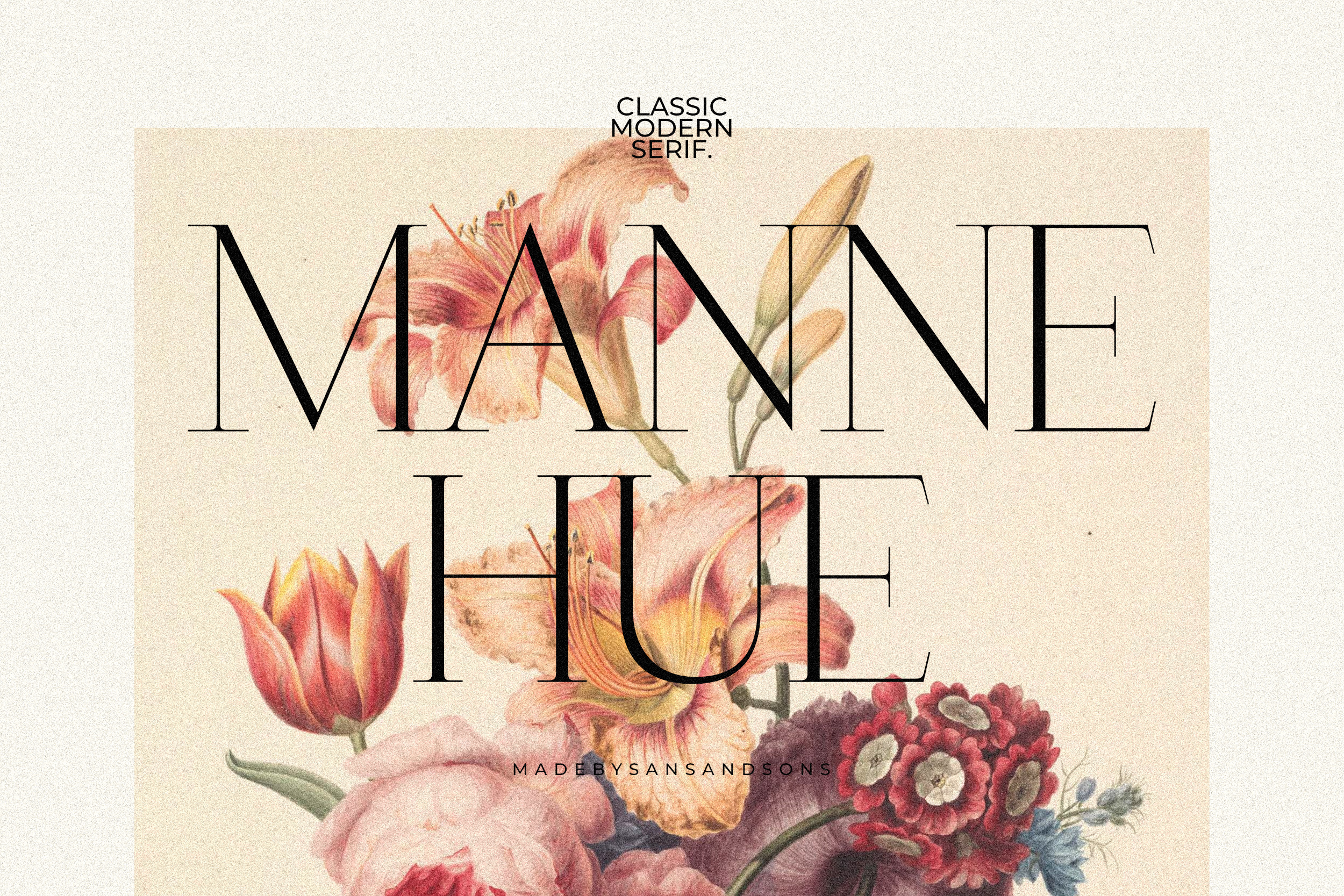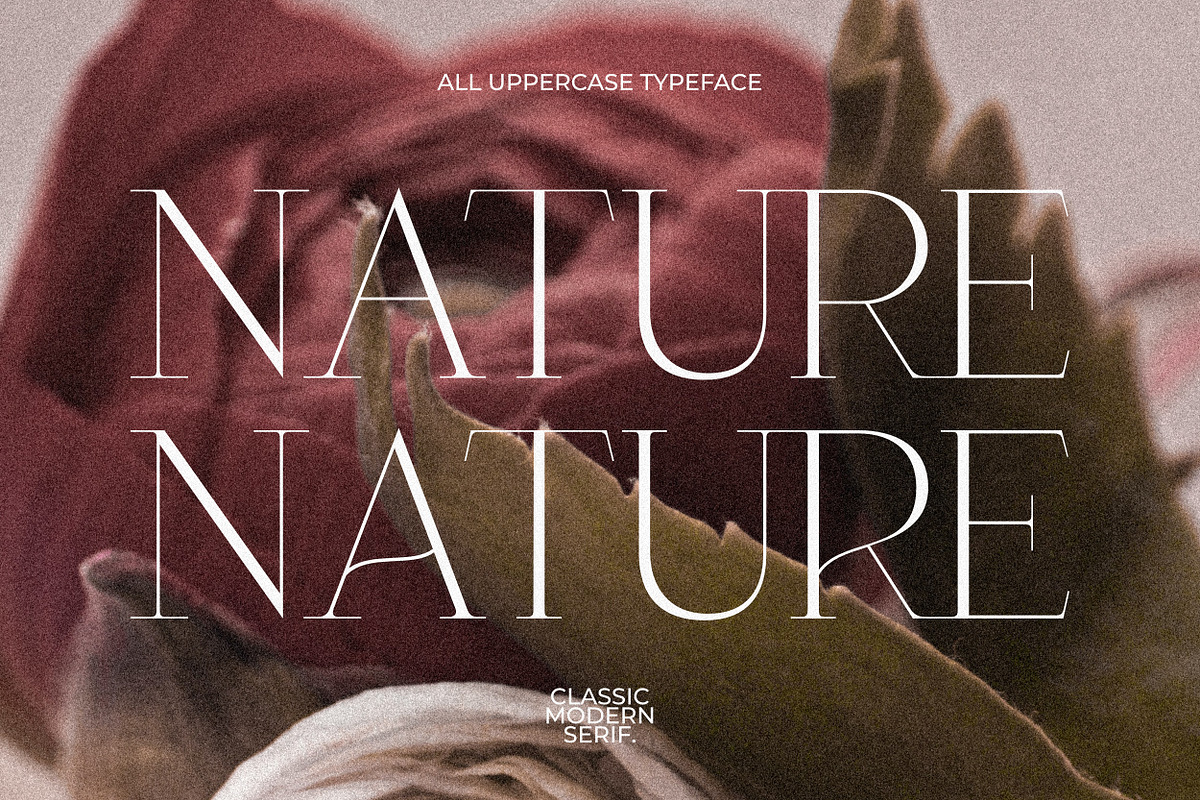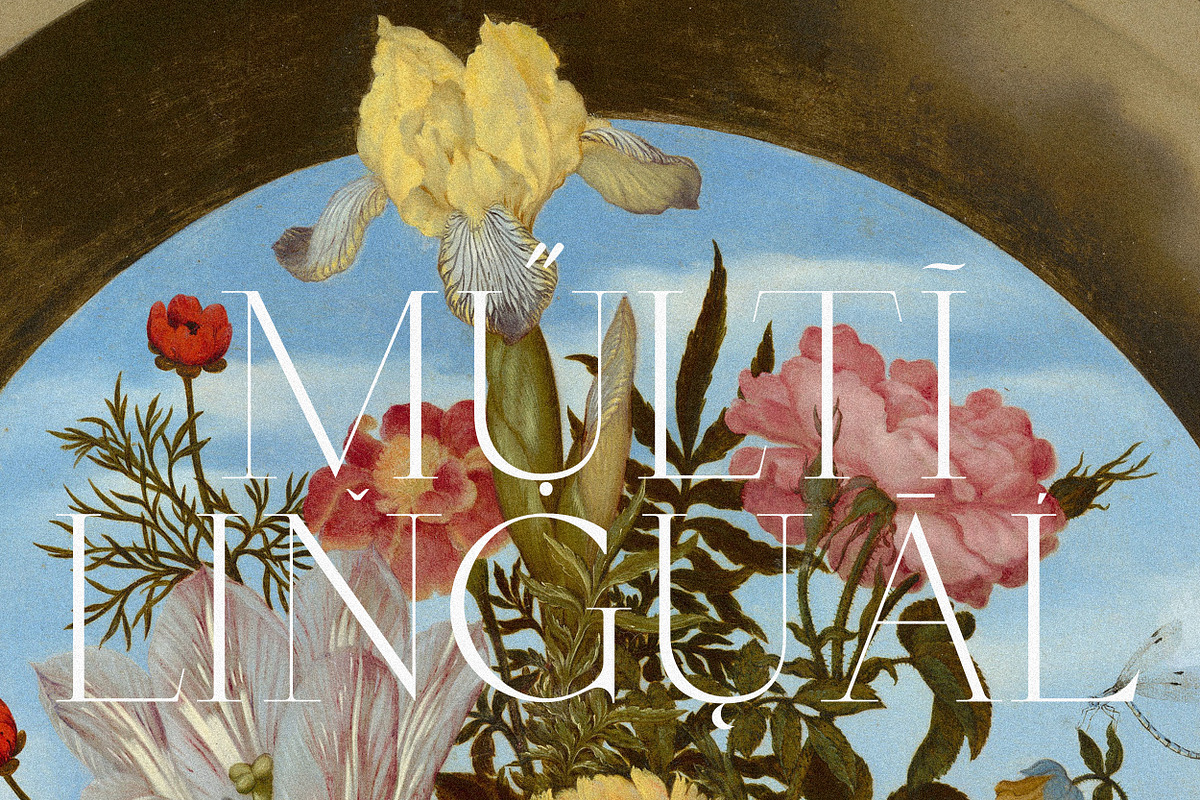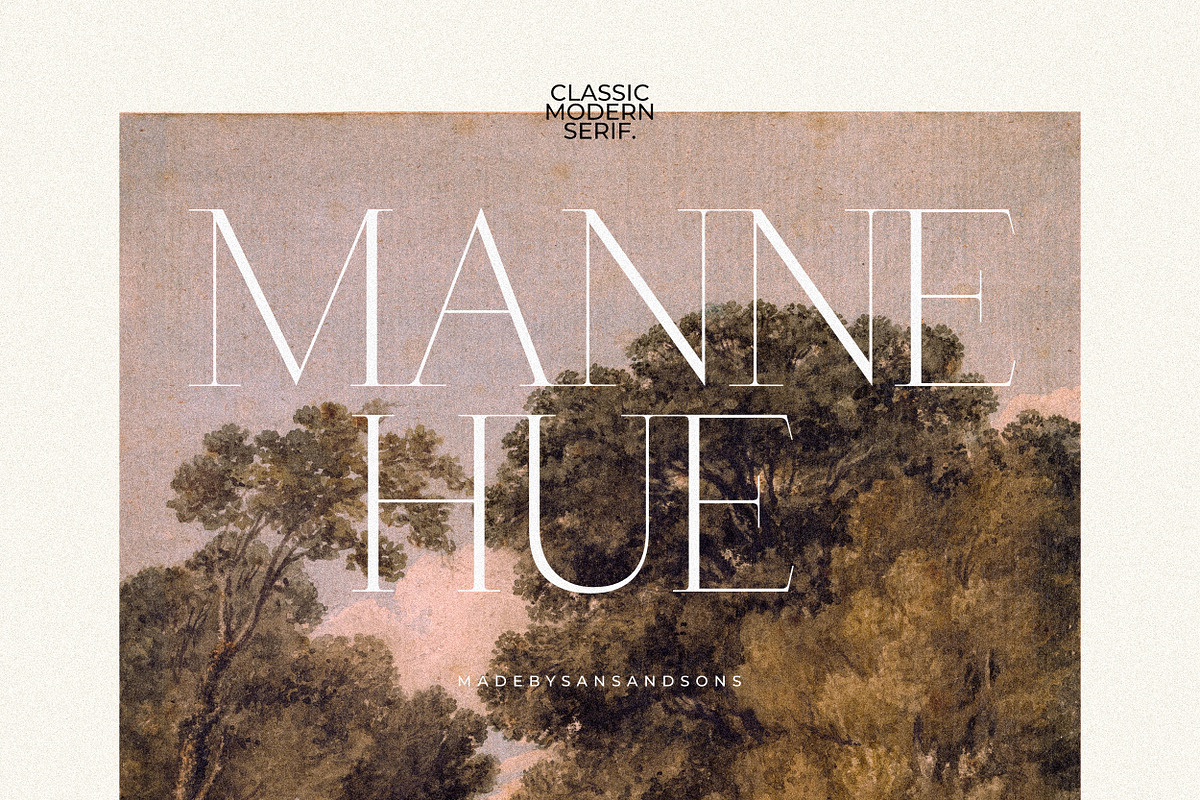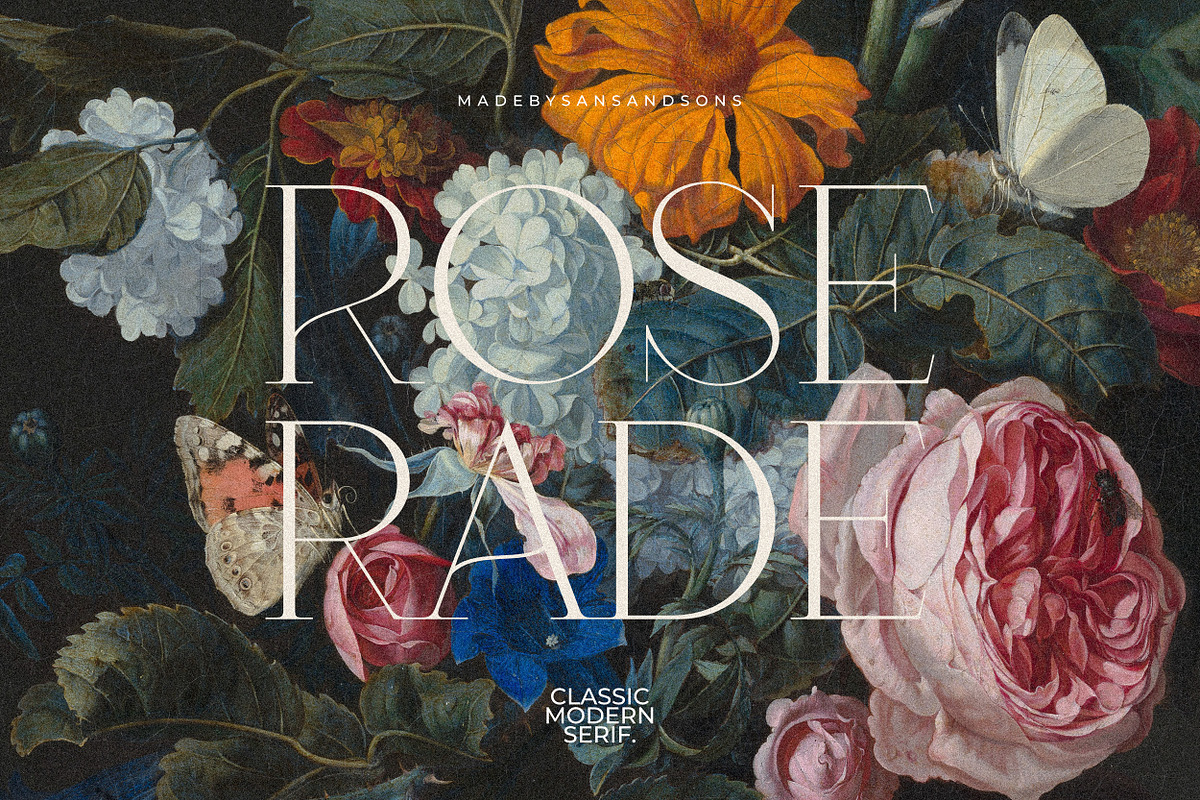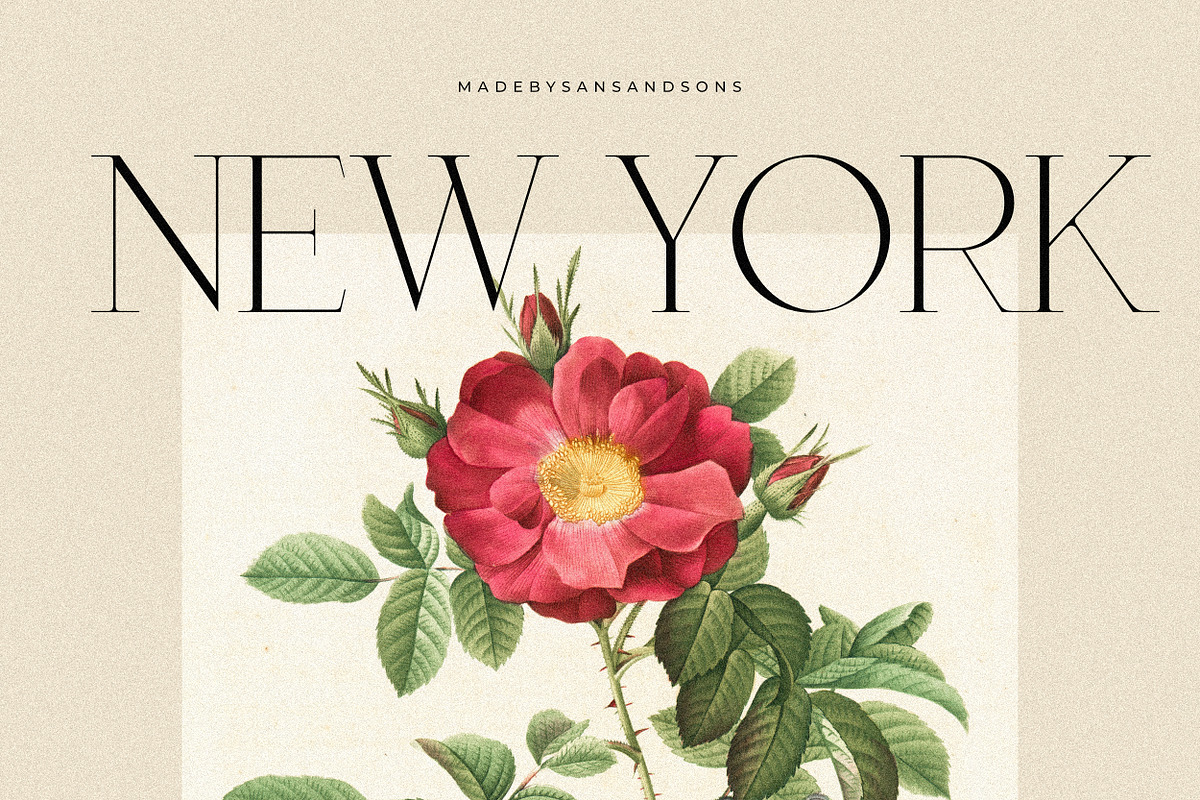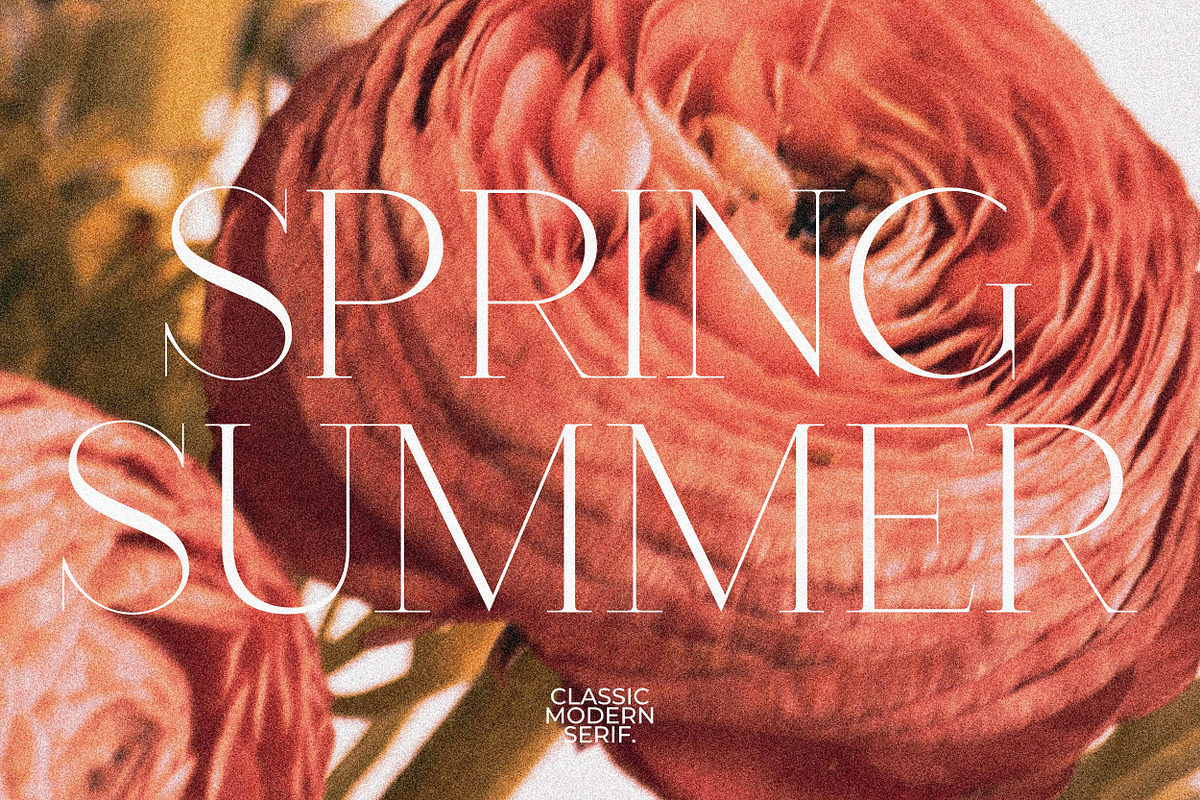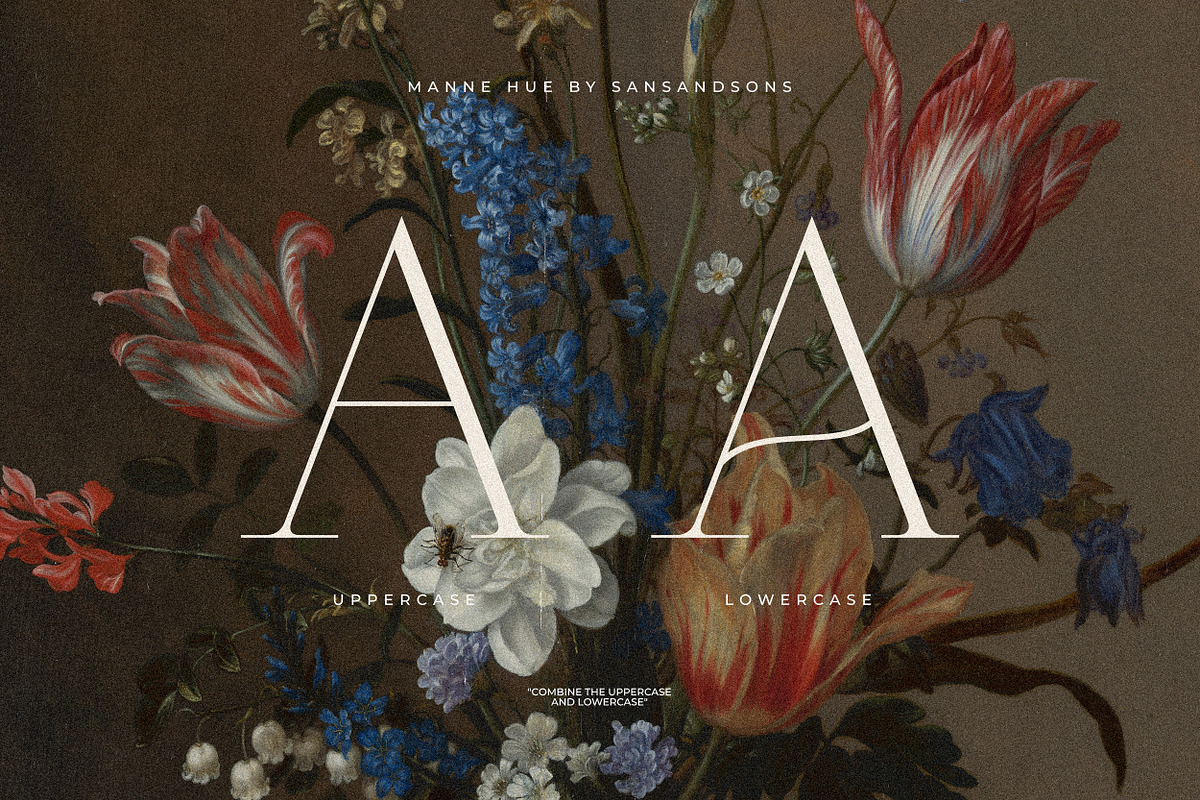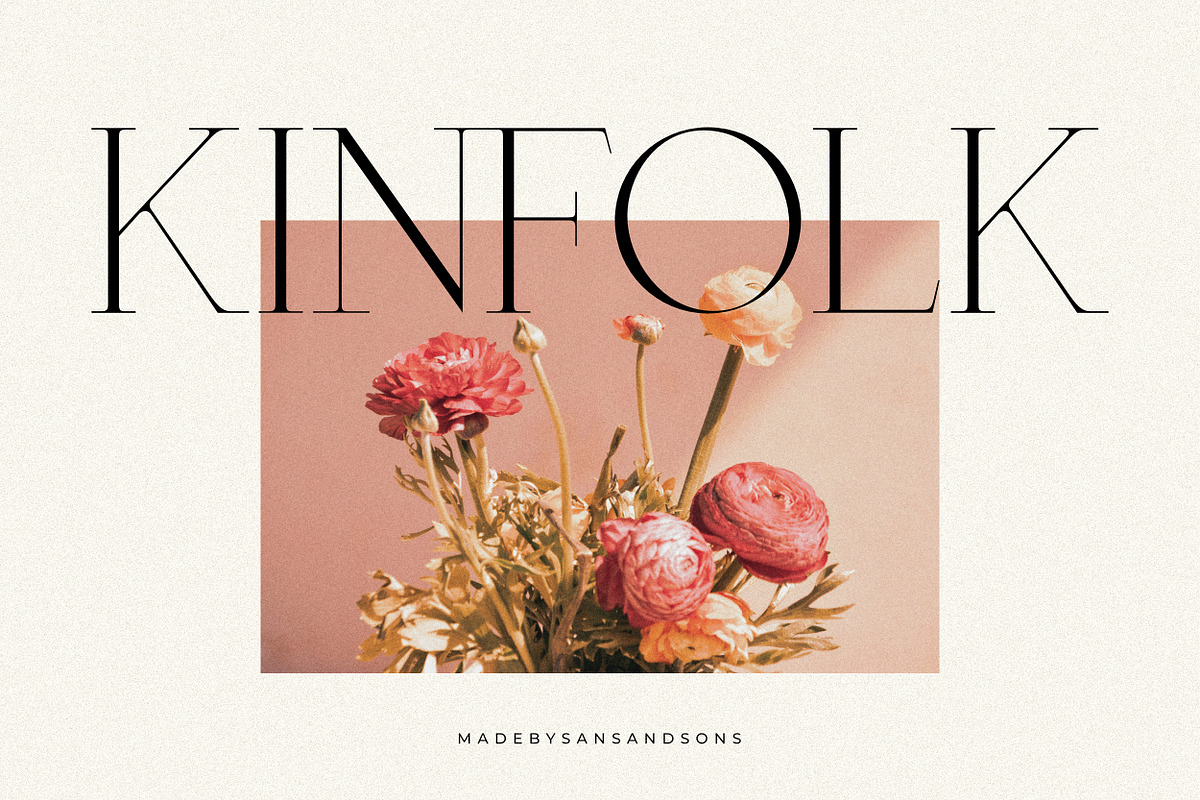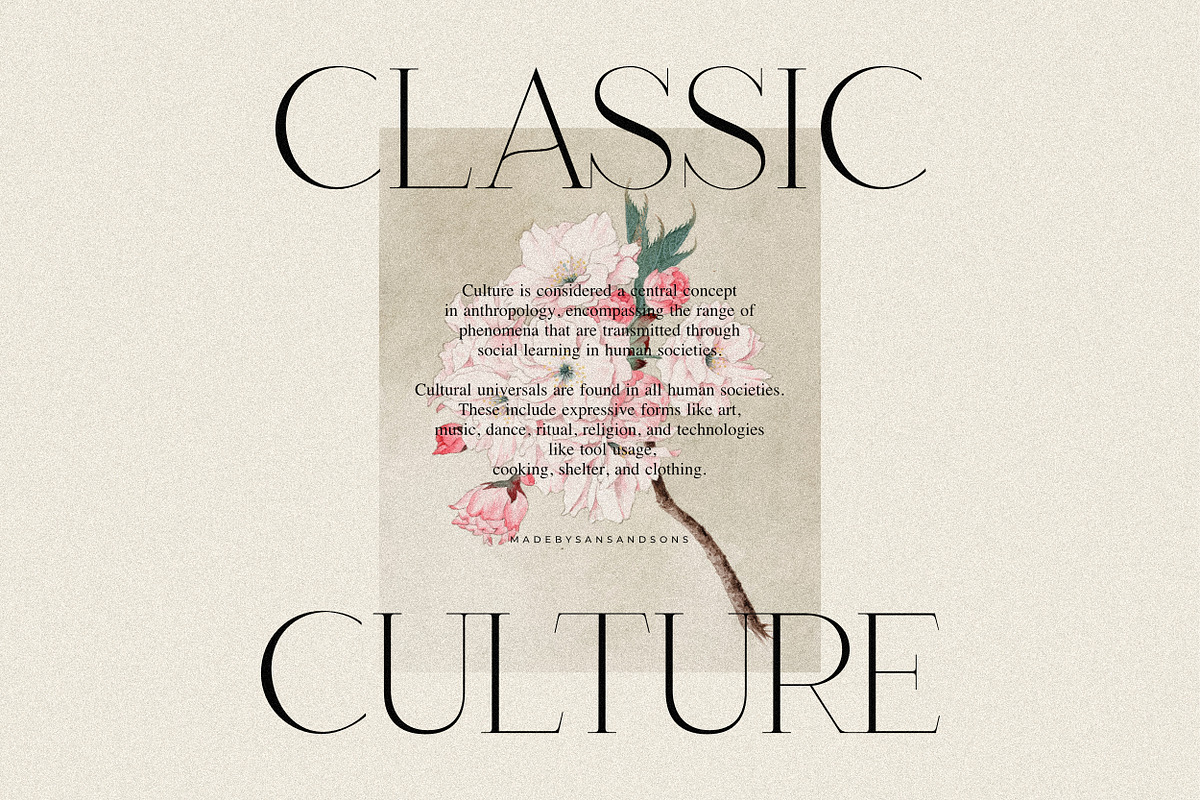
Manne - Modern Classic Font
Manne - Modern Classic Font by Sans and Sons
introducing our new "Manne" Modern Classic with Sleek and Elegant Style is perfect for branding, logos, invitation, master heads, and more.
Manne Features :
- Multilanguage